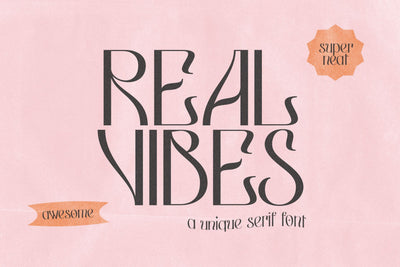
Real Vibes - Display Serif Font
Real Vibes is a curvy display serif with unusual letterforms that flow together effortlessly. This font is perfect if you are looking for a typeface that will make your brand stand out. Real Vibes is sure to add an eye-catching vibe to your designs!
When vintage meets modern - Real Vibes is perfect for logo design, advertisements, products, packaging, social media, ads, branding, shirts, wedding decor, signs, prints, quotes, social media, instagram stories and more!